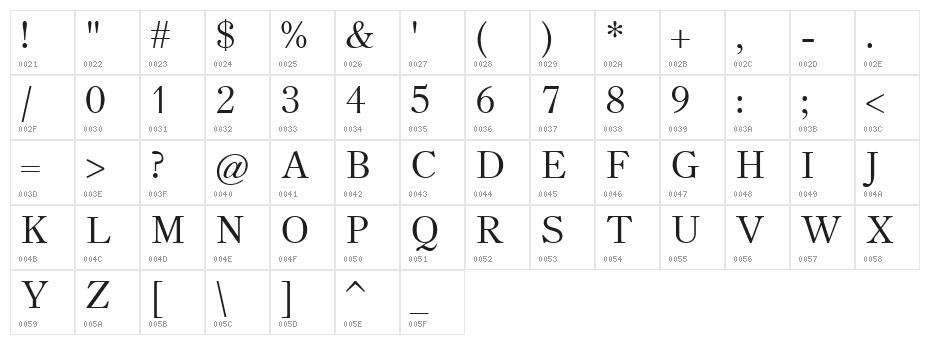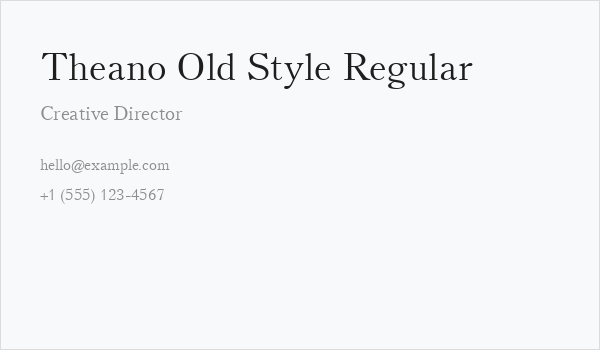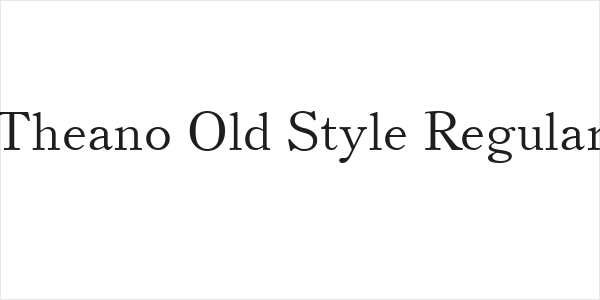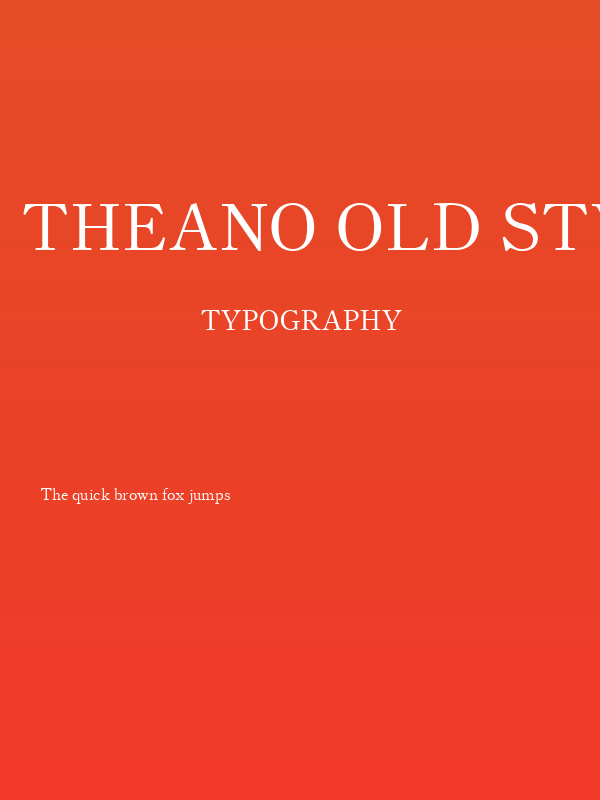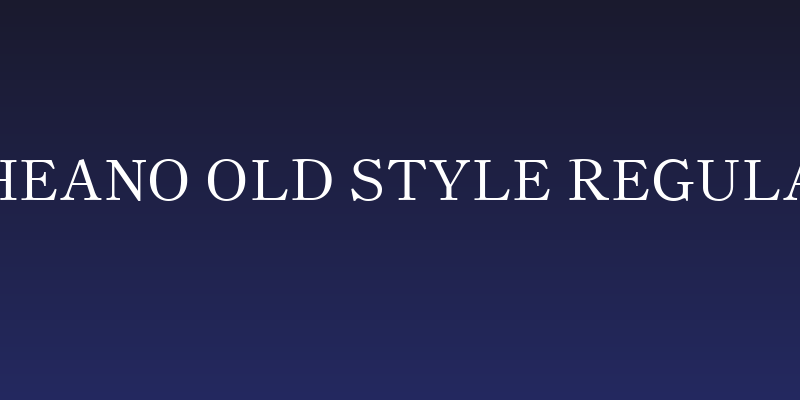
Theano Old Style Regular Font
Theano Old Style Regular Description
This typeface exudes a classic and timeless elegance, characterized by its refined serif details and balanced proportions. The uppercase letters display a traditional formality, while the lowercase letters offer a harmonious blend of curves and straight lines. The numerals are clear and legible, maintaining the font's overall sophisticated appearance. Special characters are thoughtfully designed, ensuring consistency across all glyphs. The font's structure is well-suited for conveying a sense of reliability and tradition, making it ideal for projects that require a touch of classicism.
| Use Case | Body text, Headlines, Editorial design |
| Proposed Projects | Ideal for book typesetting, formal invitations, branding for luxury goods, and editorial design. |